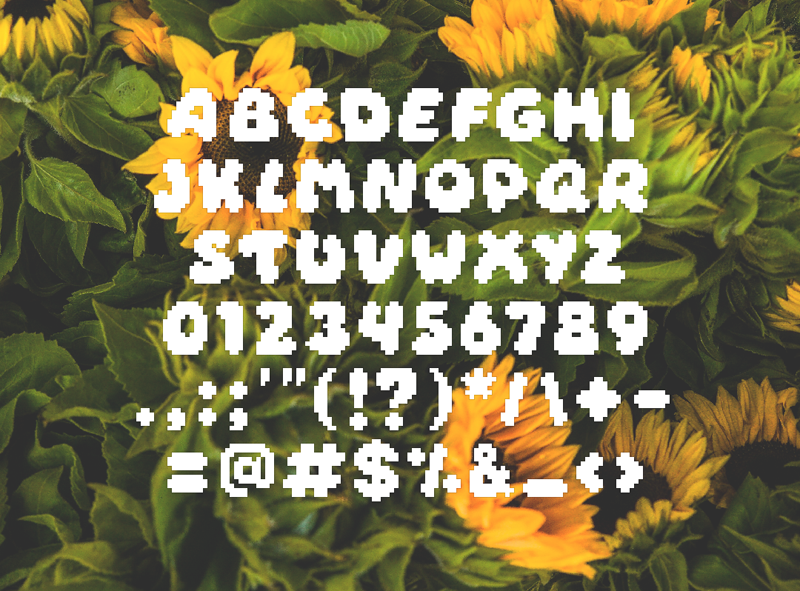
Font name: | Daydream |
Author: | DoubleGum |
Note by DoubleGum | |
A chonky bitmap font with a soft heart and retro soul. Designed to feel like clouds in an 8-bit sky, it brings a bold, bouncy energy to your words. * FREE FOR PERSONAL USE ONLY * DEMO VERSION � Personal license � Only 43 character glyphs � No kerning pairs FULL VERSION � Commercial license � All 60 character glyphs � All kerning pairs Full version is available here: Itch.io: https://doublegumm.itch.io/daydream-pixel-font Gumroad: https://doublegum.gumroad.com/l/daydream Follow my work: https://linktr.ee/doublegum |